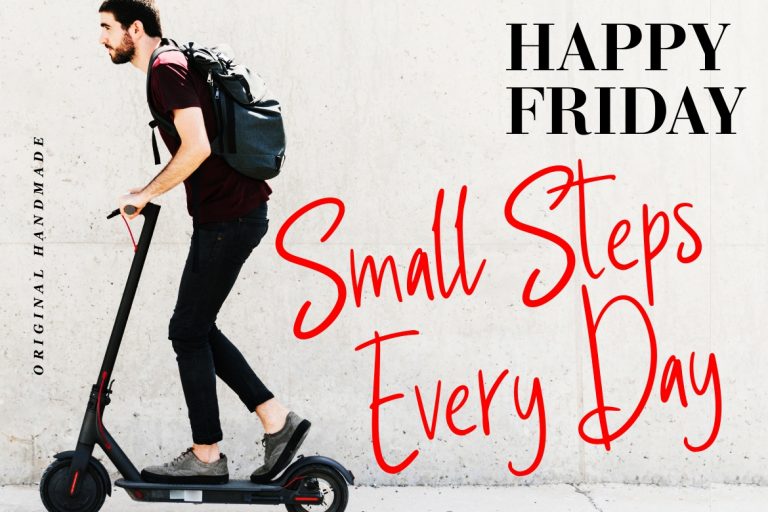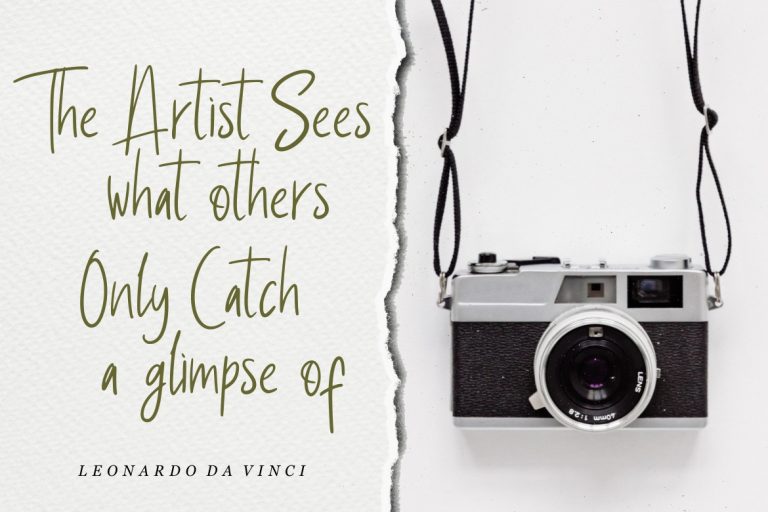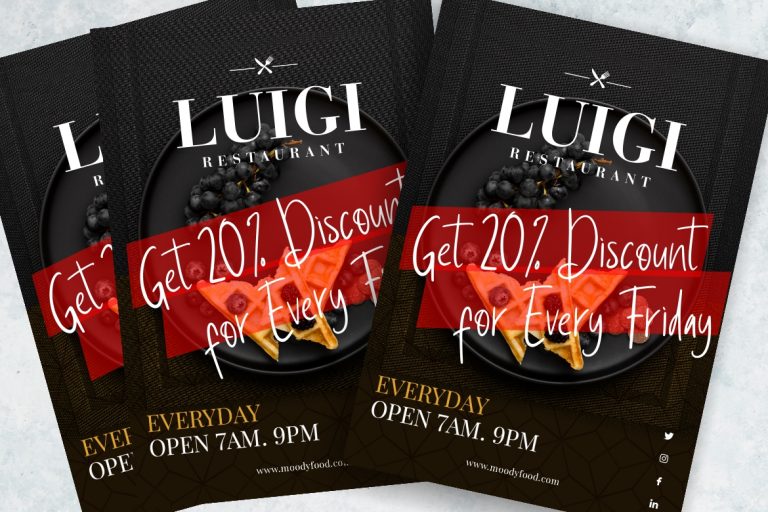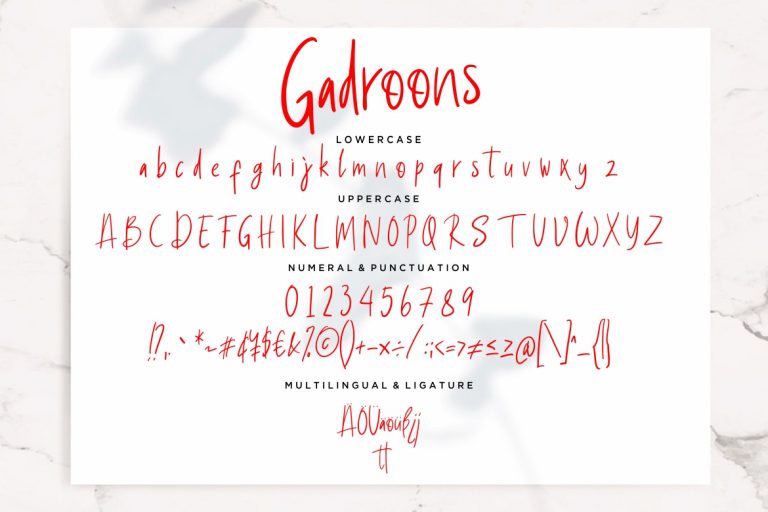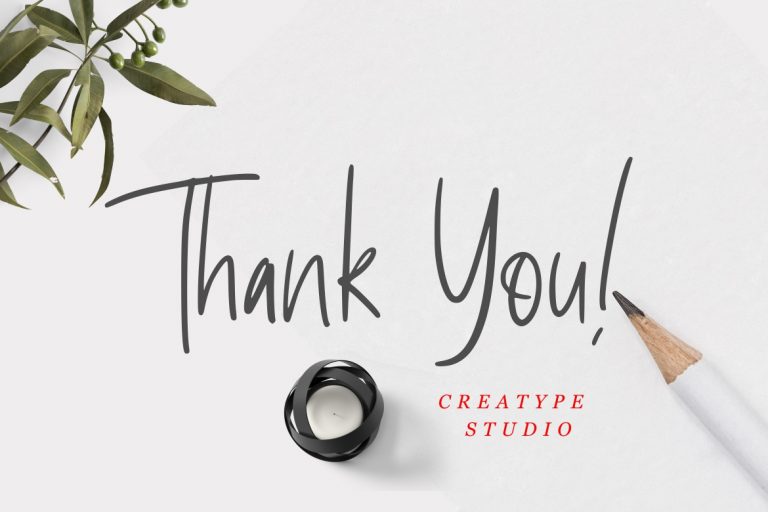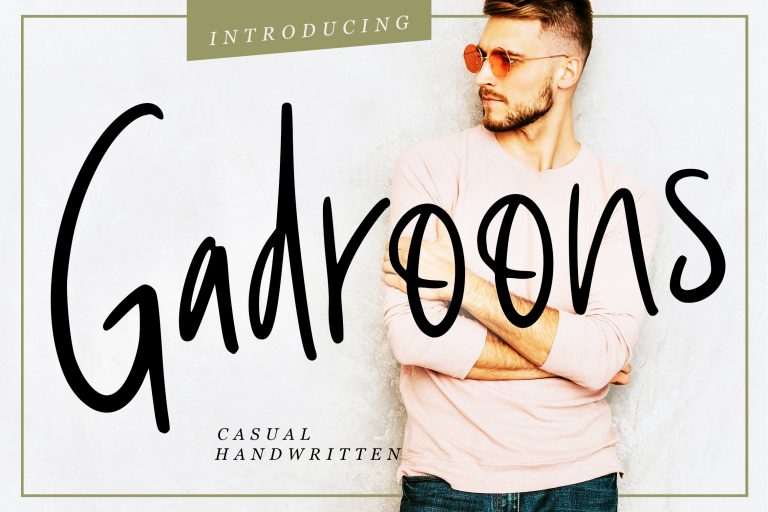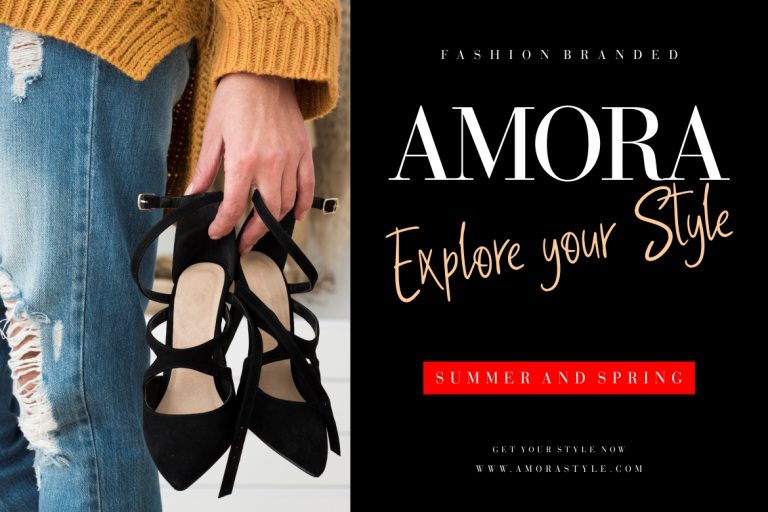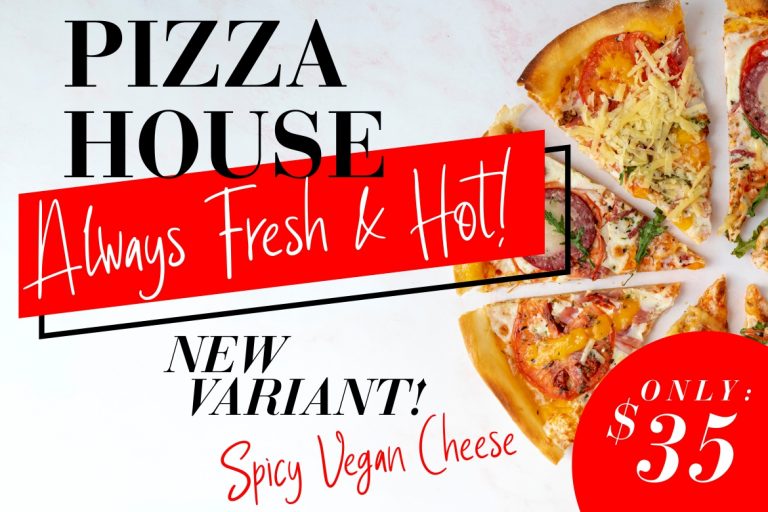
Gadroons is casual handwritten font with sans-serif style will perfect for your latest project.
Gadroons is perfect for branding projects, logo, wedding designs, social media posts, advertisements, product packaging, product designs, label, photography, watermark, invitation, stationery and any projects that need handwriting taste.
- Fonts include multilingual support for; ä ö ü Ä Ö Ü ß ¿ ¡
Gadroons Casual Handwritten